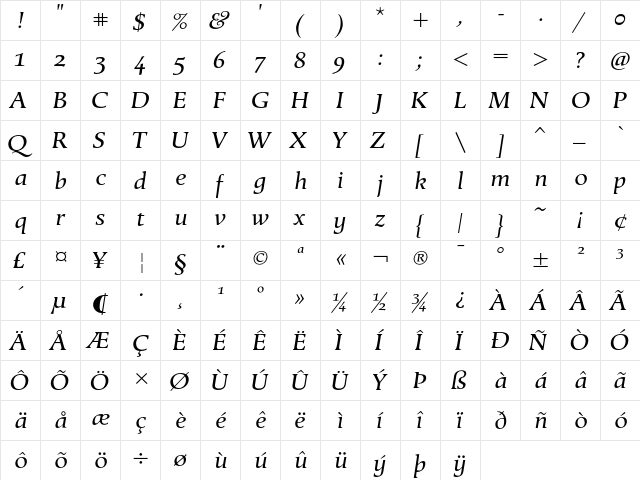
Berndal LT Std Regular Italic Font Preview
| Foundry | Linotype GmbH |
| Designer | Bo Berndal |
Design Context for Berndal LT Std Regular Typeface
Berndal LT Std Regular offers clean, dependable letterforms without strong stylistic allegiance, making it a practical choice for designers who need flexibility. The dynamic lean of this cut emphasises speed and emphasis in any layout. Its slender proportions lend an understated elegance to any composition.
Pro Tip: Try Berndal LT Std Regular for annotation and caption copy alongside an upright companion — the contrast in angle creates a dynamic but ordered typographic system.